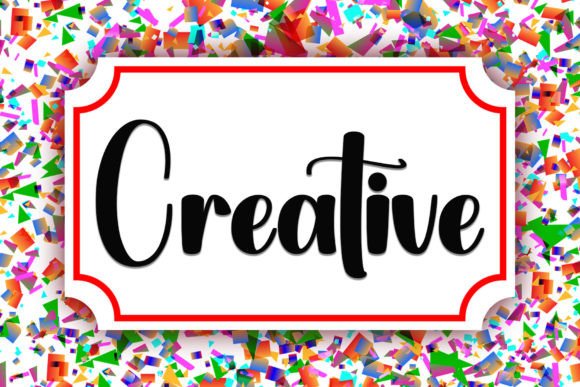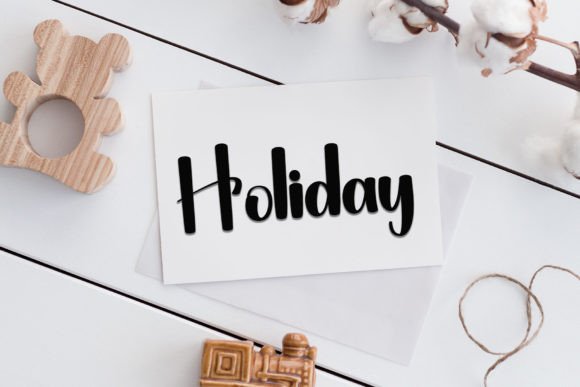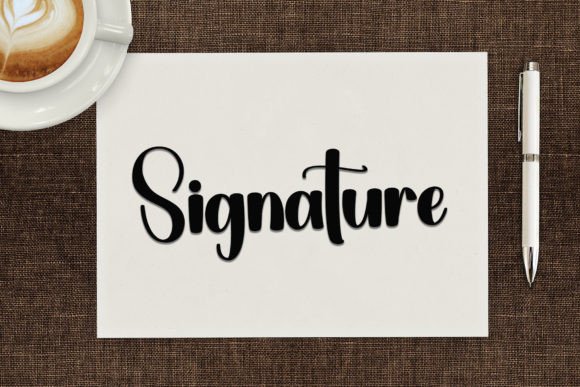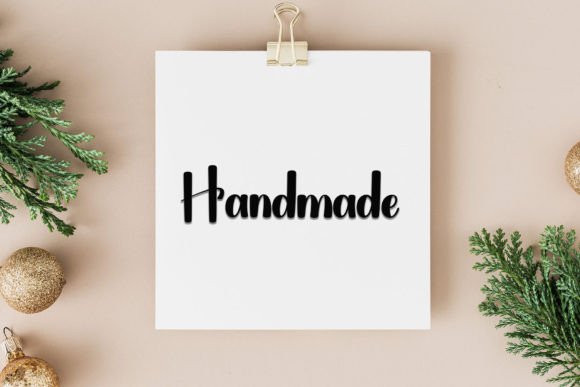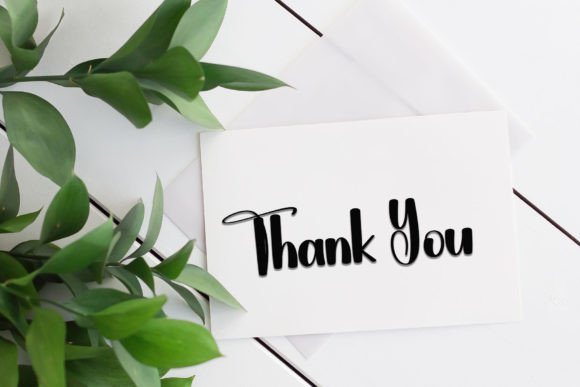
Introducing Doctor Font: Elevate Your Designs with Timeless Elegance
In the realm of typography, few fonts manage to strike a balance between classic sophistication and modern flair. Doctor Font is one such exceptional typeface that brings a stylish, handwritten aesthetic to your projects, infusing them with a contemporary atmosphere and impeccable form. Inspired by the elegance of timeless classic calligraphy, Doctor Font is poised to enhance the beauty of your designs, whether you’re a seasoned designer or a crafting enthusiast.
The Essence of Doctor Font
Doctor Font is more than just a typeface; it’s a design statement. With its roots in traditional calligraphy, this font has been crafted to bring a sense of balance and variation to your projects. Each letterform has been meticulously designed to ensure that it not only stands out on its own but also harmonizes beautifully with others, creating a cohesive and visually appealing text.
Key Features of Doctor Font
- Stylish Handwritten Aesthetic: The font boasts a stylish, handwritten look that adds a personal touch to any project. Its contemporary vibe ensures that it remains versatile, suitable for a wide range of applications.
- Balanced and Varied: The design of Doctor Font emphasizes balance and variation. This ensures that your text remains engaging and dynamic, capturing the attention of your audience.
- Inspired by Timeless Classics: By drawing inspiration from classic calligraphy, Doctor Font brings a sense of timelessness to your designs. It’s perfect for projects where you want to evoke a sense of tradition without compromising on modern appeal.
Applications of Doctor Font
The versatility of Doctor Font makes it suitable for a myriad of design projects. Here are a few ideas to get you started:
- Branding and Logotypes: The unique, stylish aesthetic of Doctor Font makes it an excellent choice for branding and logotypes. It can help your brand stand out and convey a sense of elegance and sophistication.
- Stationery and Invitations: Add a touch of class to your stationery, invitations, and greeting cards with Doctor Font. Its handwritten charm is sure to leave a lasting impression.
- Digital Media: Whether you’re designing social media graphics, blog headers, or website content, Doctor Font can elevate your digital presence with its contemporary and stylish appeal.
- Crafting Projects: For crafters, Doctor Font can be a valuable asset in creating beautiful, personalized projects. Use it for DIY tutorials, journaling, or any craft that involves lettering.
Tips for Using Doctor Font Effectively
Doctor Font is a remarkable addition to any designer’s or crafter’s toolkit. Its stylish, handwritten aesthetic, combined with its contemporary vibe and classic inspiration, makes it a versatile choice for a wide range of projects. With its PUA encoding, using this font is as easy as it is enjoyable. Whether you’re looking to add a touch of elegance to your branding, stationery, digital media, or crafting projects, Doctor Font is sure to exceed your expectations.